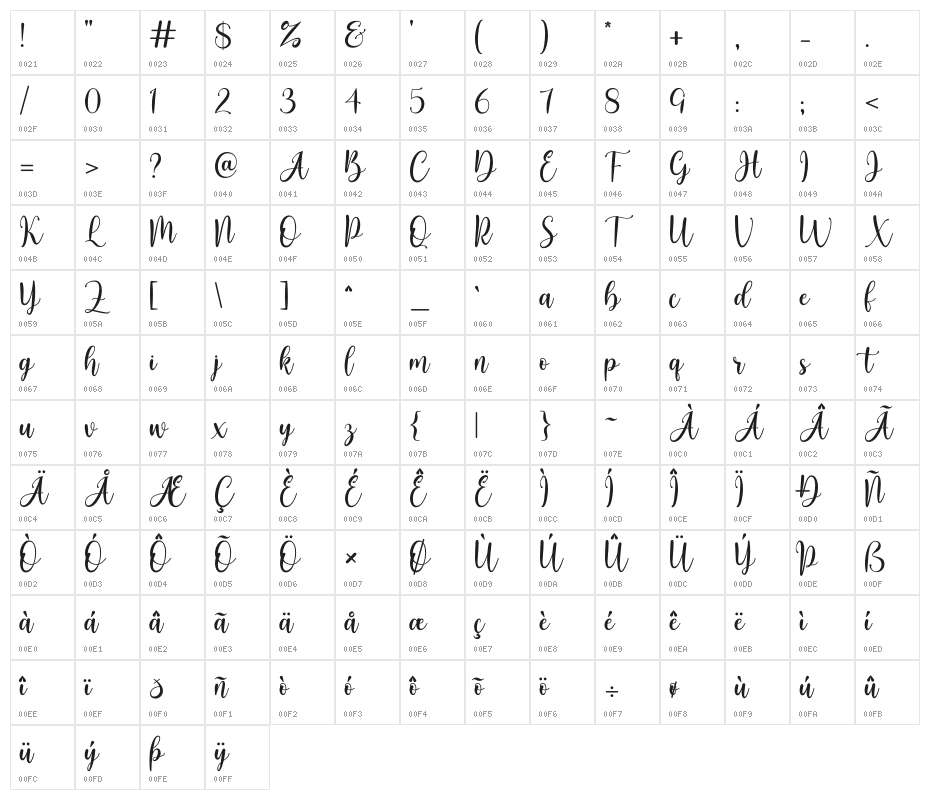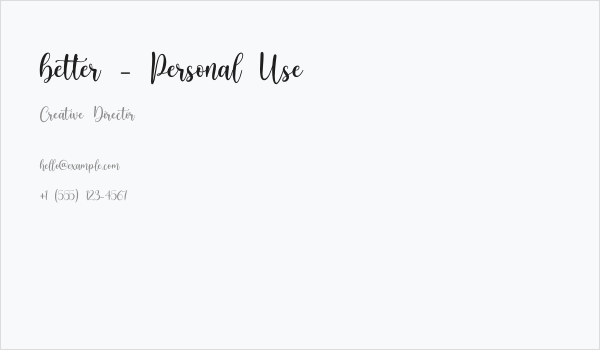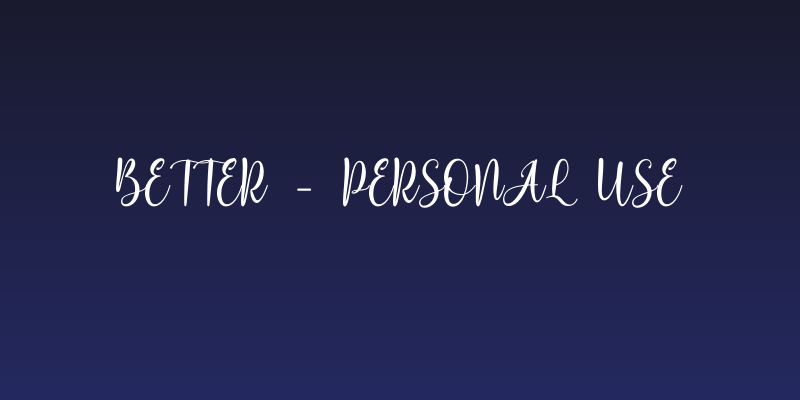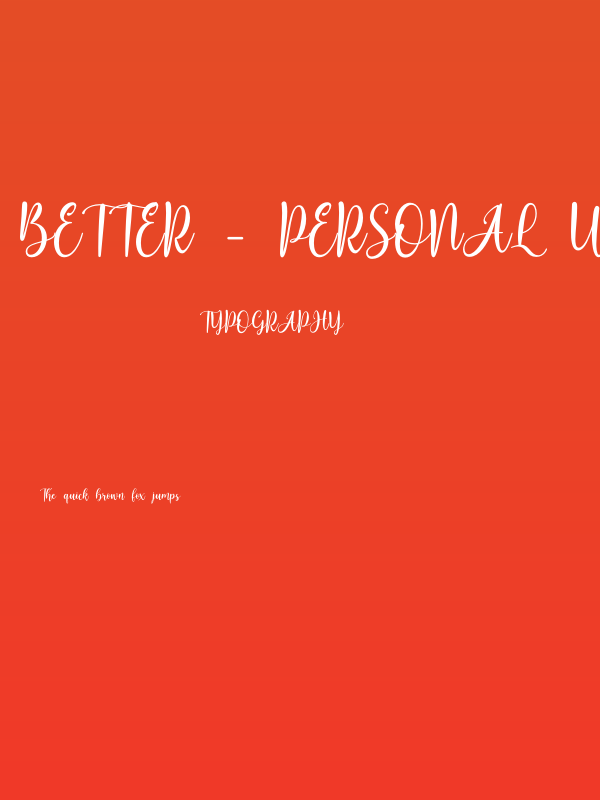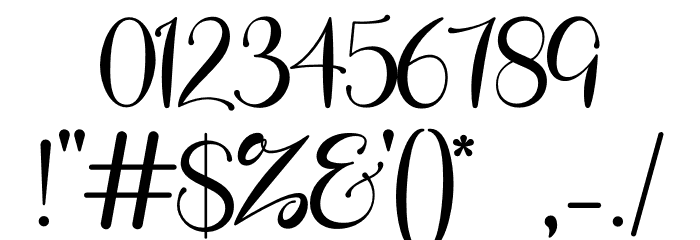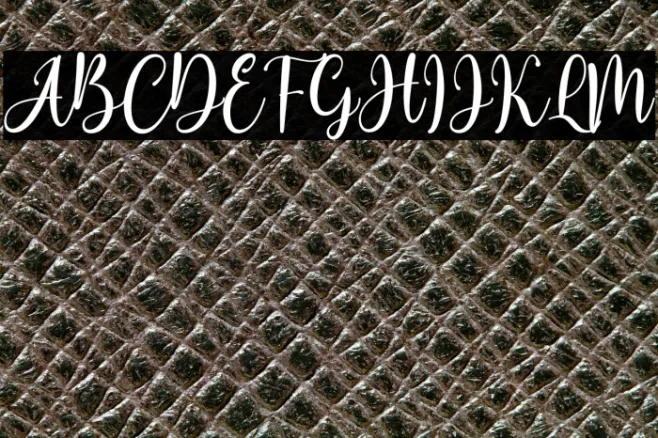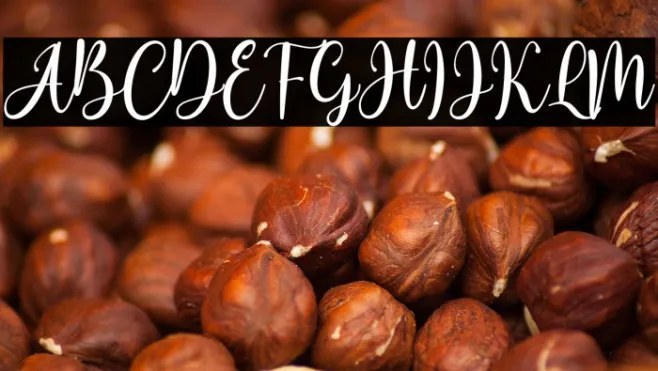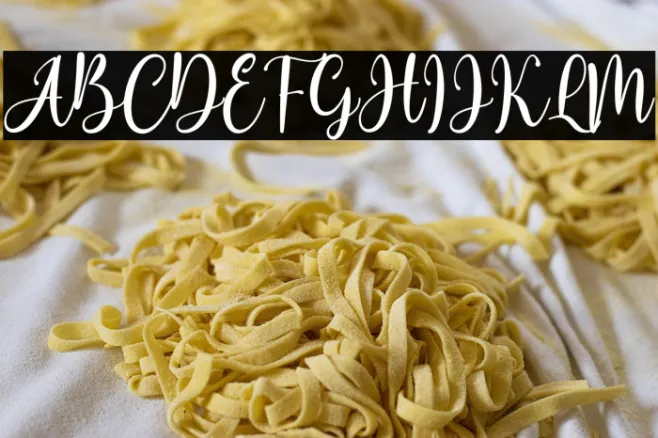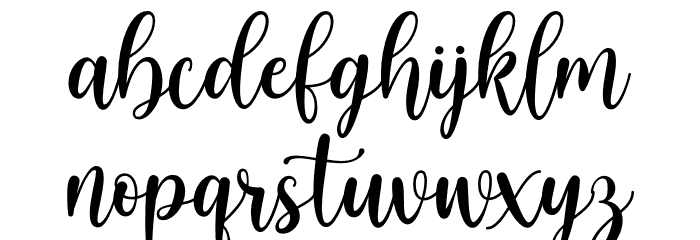
better - Personal Use Font
better - Personal Use Description
This font features an elegant and flowing script style, characterized by its smooth, cursive strokes and graceful loops. The uppercase letters are bold and expressive, with a slight slant that adds a dynamic feel. The lowercase letters maintain a consistent flow, enhancing readability while retaining a stylish appearance. Numbers and special characters are crafted with the same attention to detail, ensuring a cohesive look across all elements. This font exudes a sense of sophistication and charm, making it suitable for a variety of creative applications.
| Proposed Projects | Ideal for wedding invitations, greeting cards, branding projects, and elegant signage. |